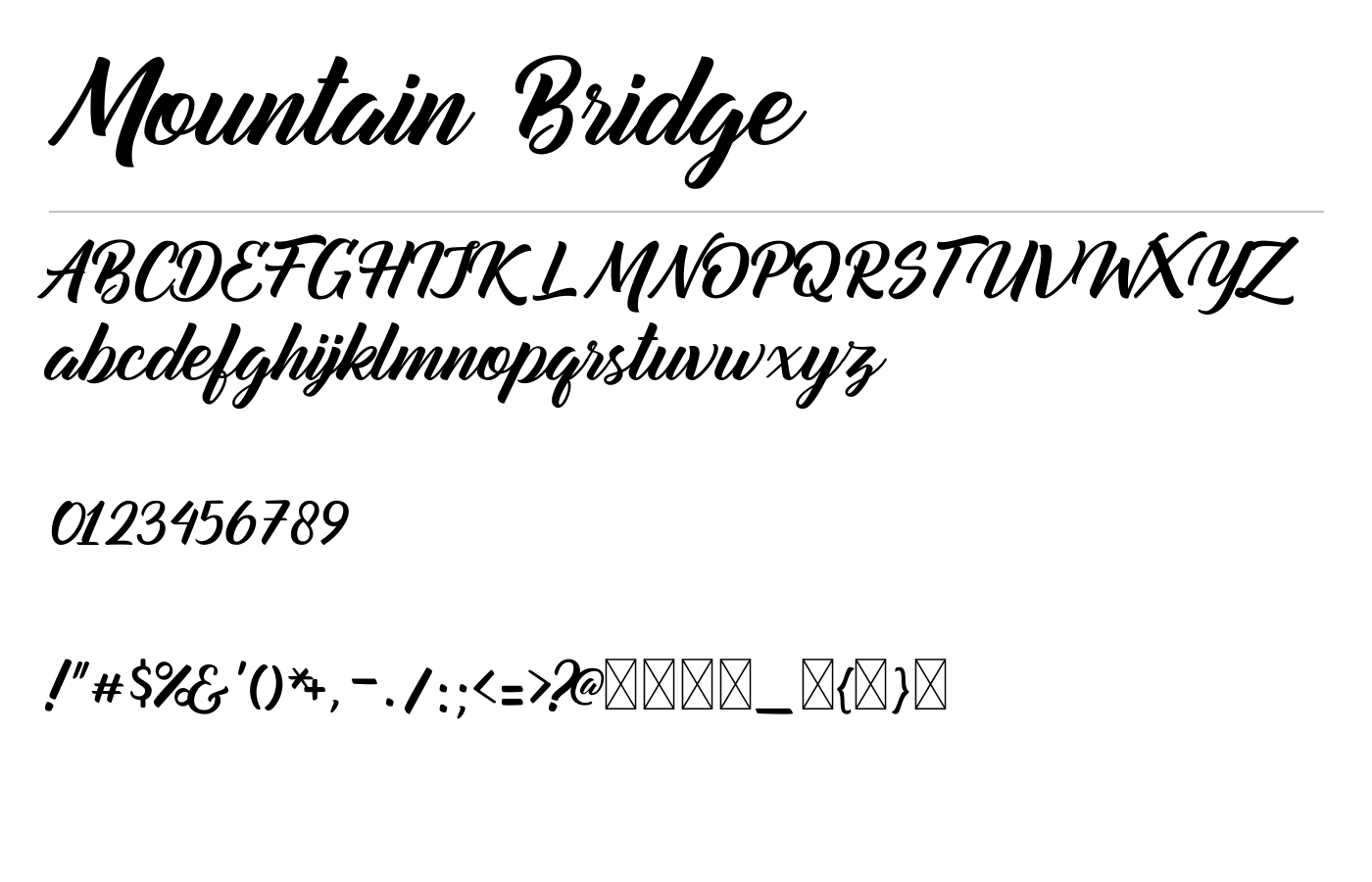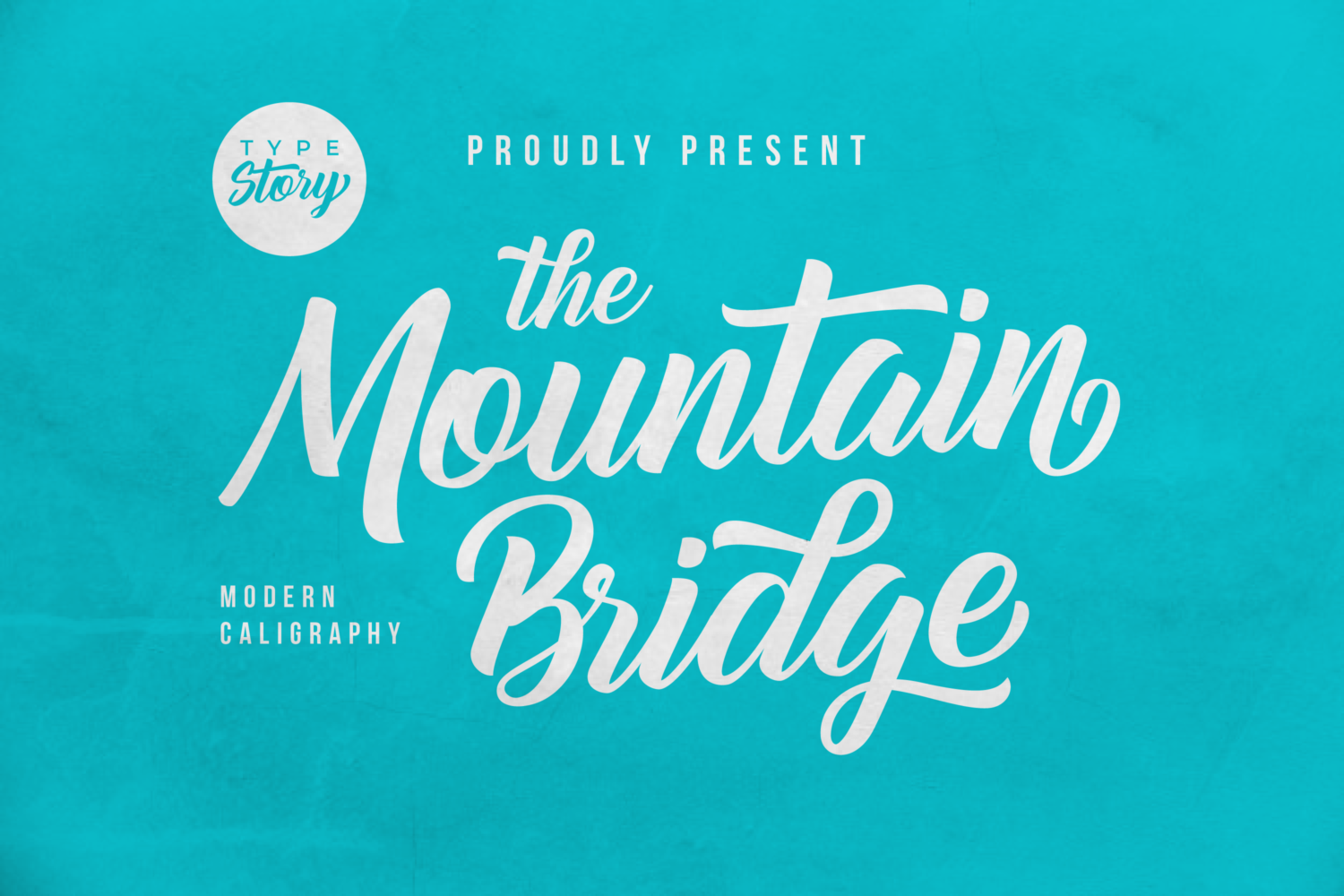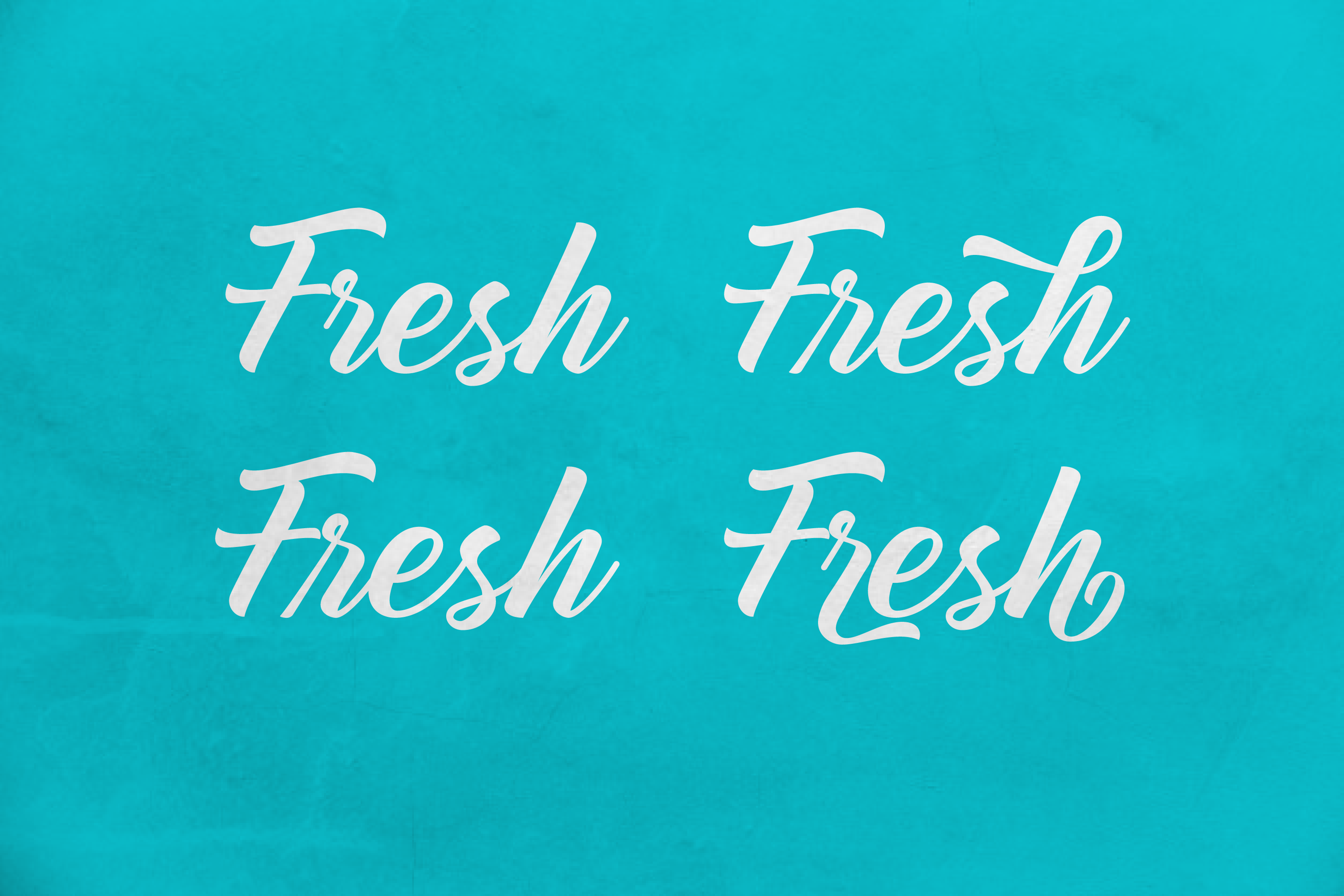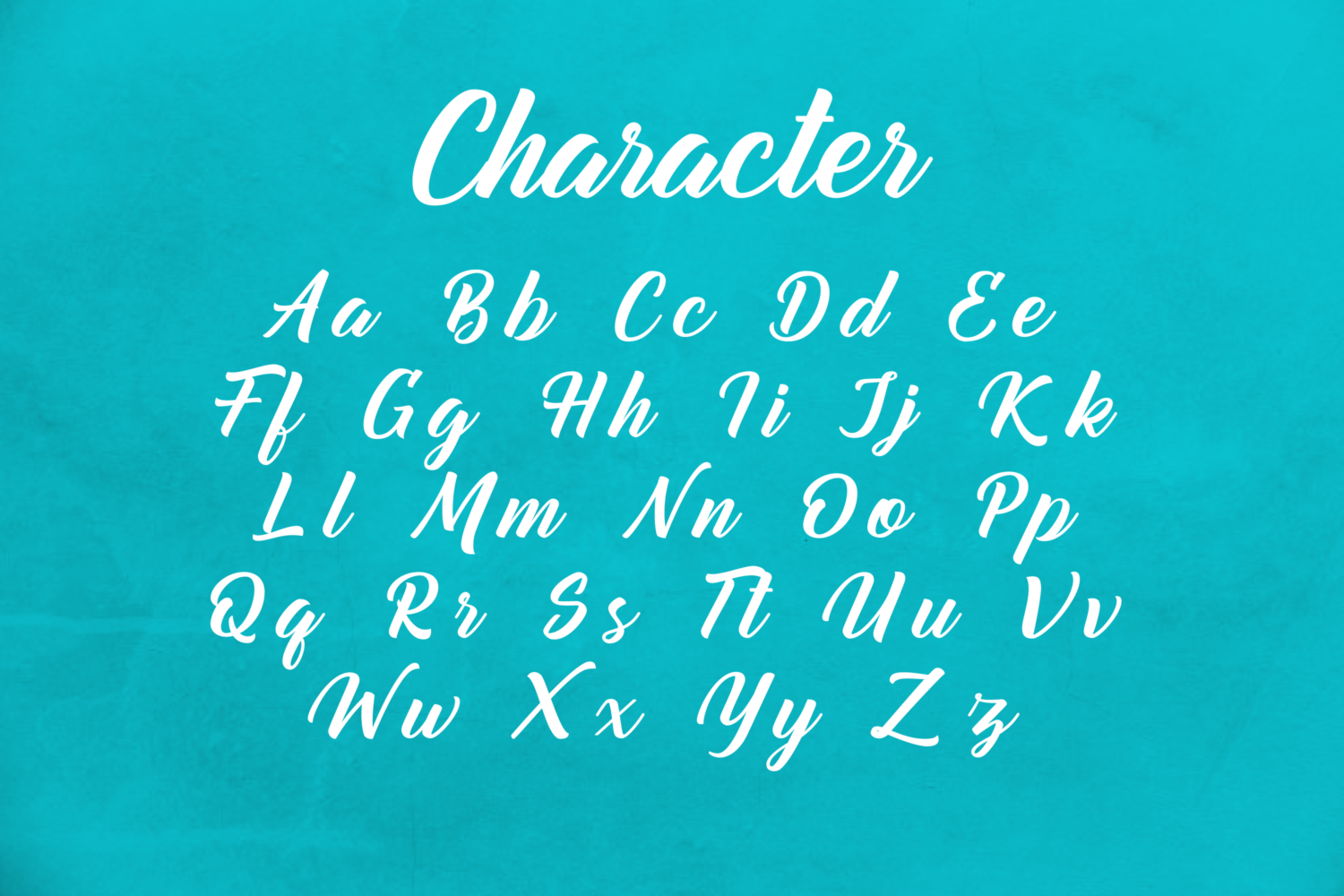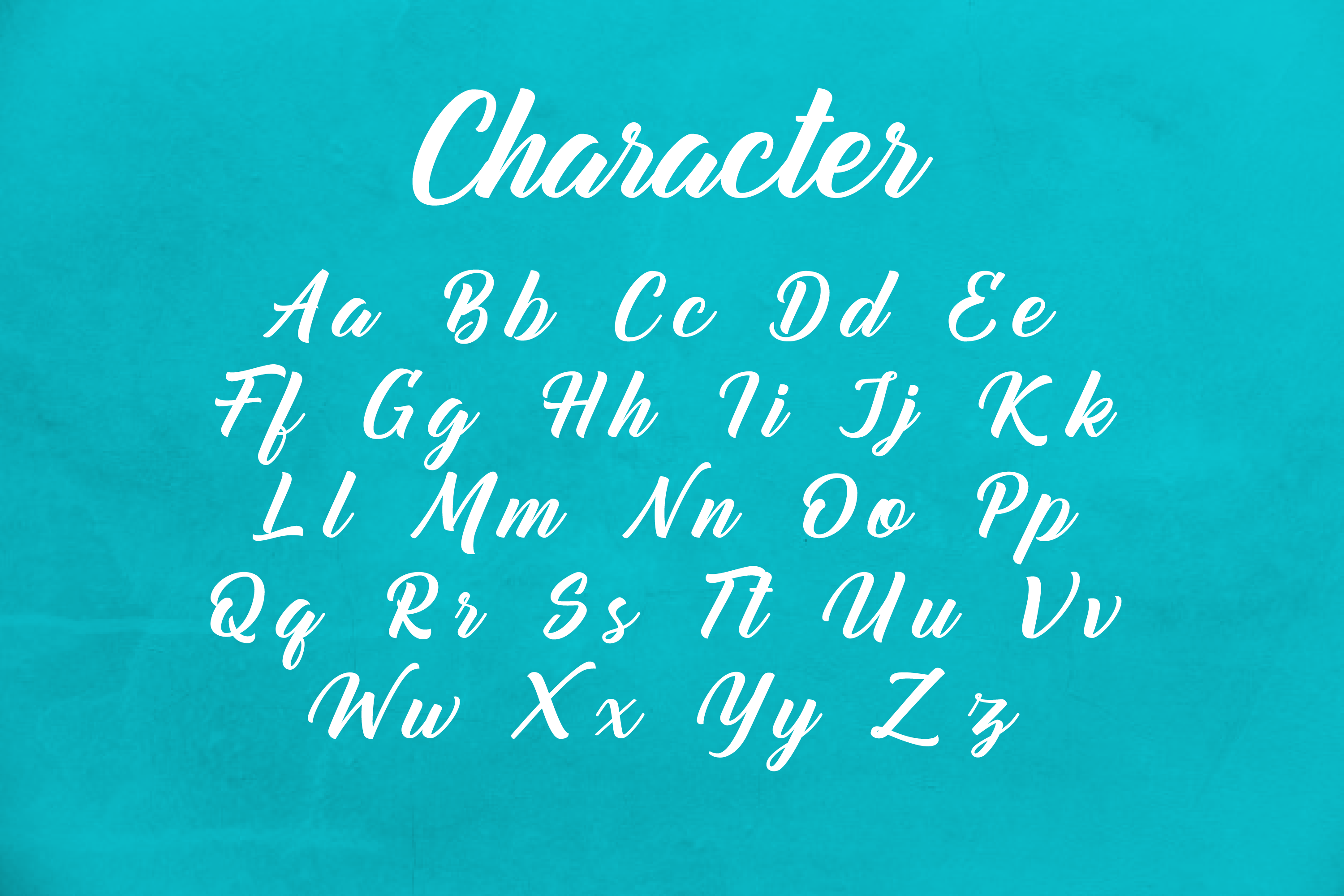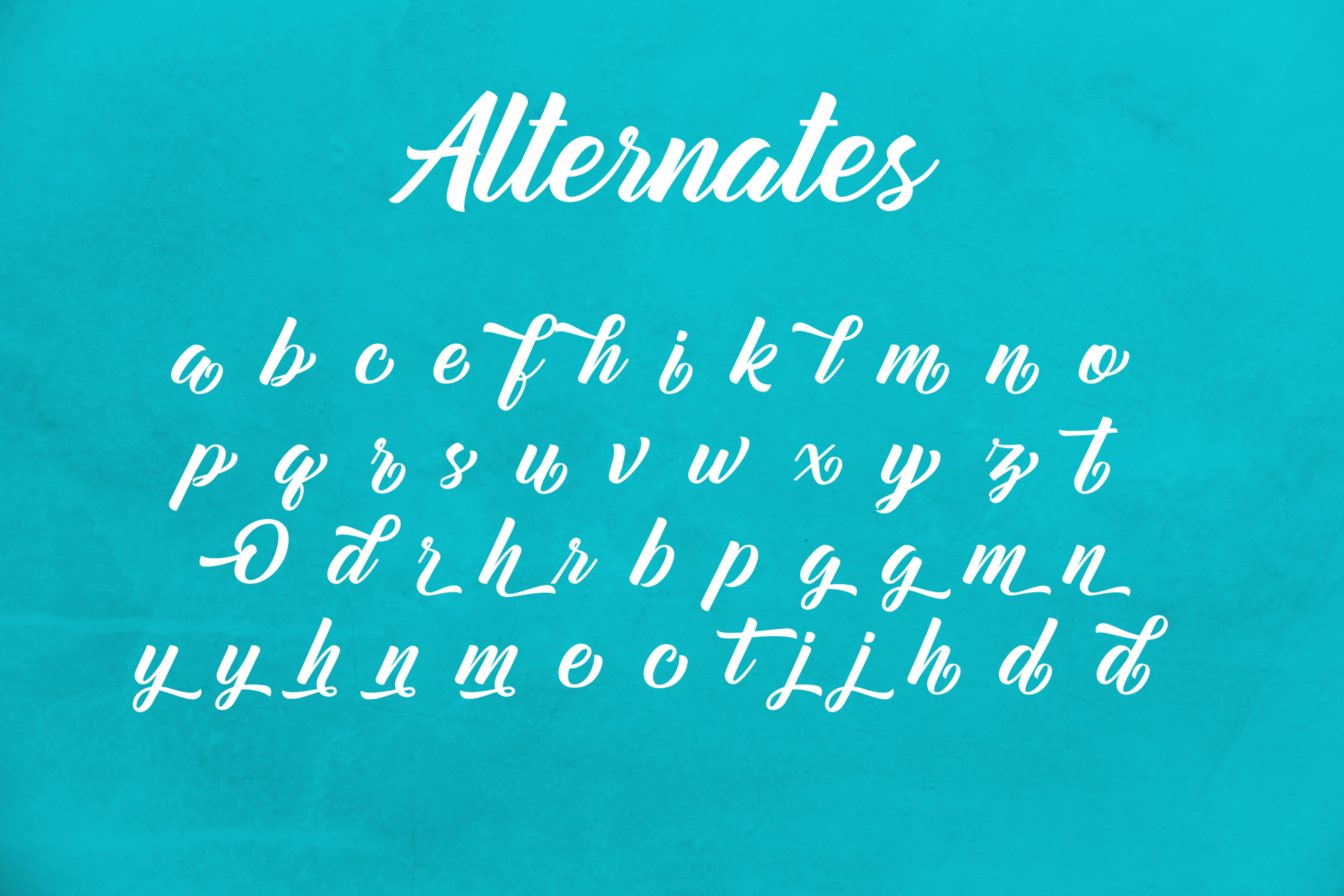
Mountain Bridge is a graceful script font with flowing, elegant strokes and a moderate contrast that gives it a stylish yet approachable feel. Its smooth, connected letterforms and slightly condensed width make it ideal for branding, invitations, and headlines where a sophisticated, hand-lettered look is desired. This font works well in designs that seek a touch of charm and personality without sacrificing readability.
Mountain Bridge
About Mountain Bridge